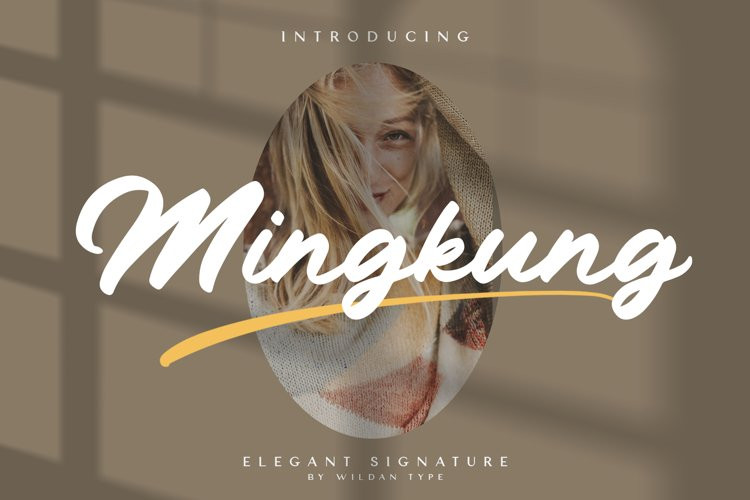
Mingkung Font
Mingkung FontMingkung is clean brush font. The shape is modern and unique and the writing style is very natural. You can create many beautiful typographic designs in an instant like branding, web design and editorial, prints, crafts, quotes,